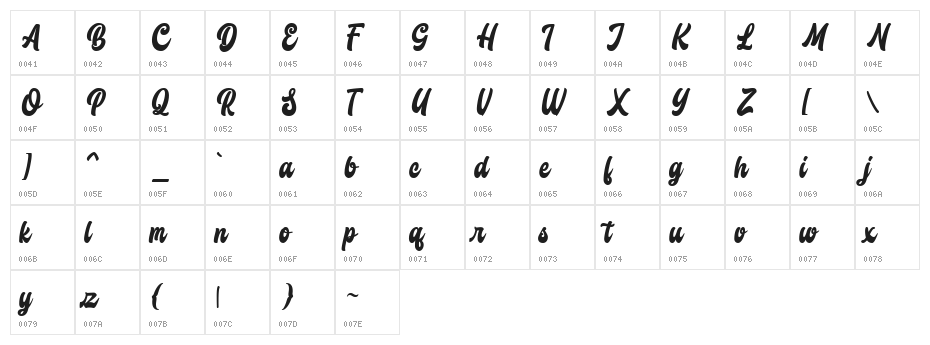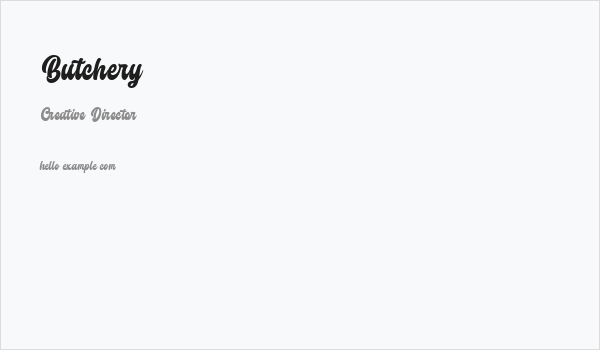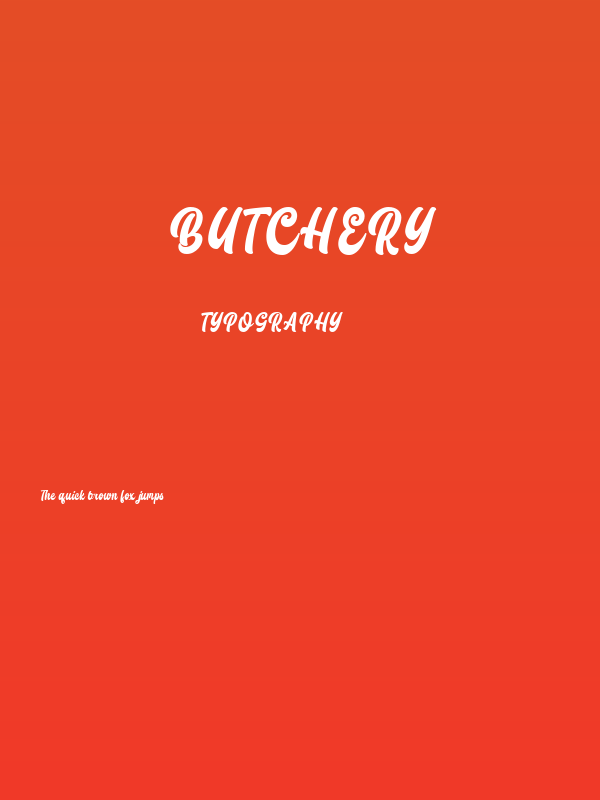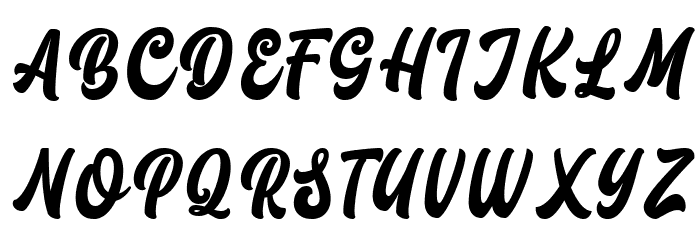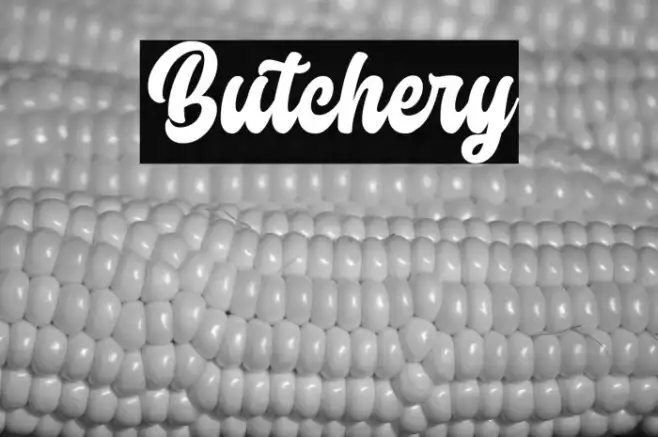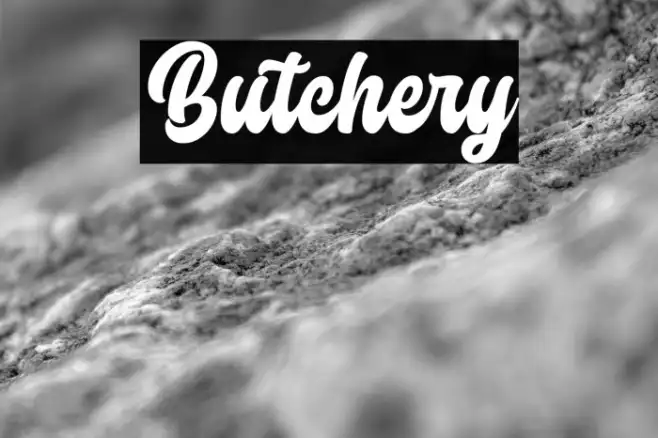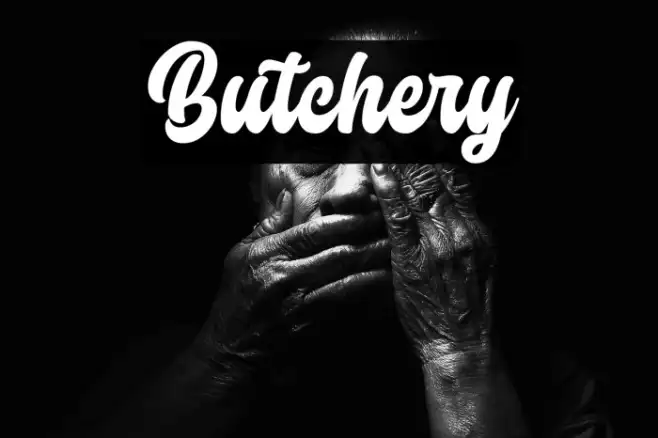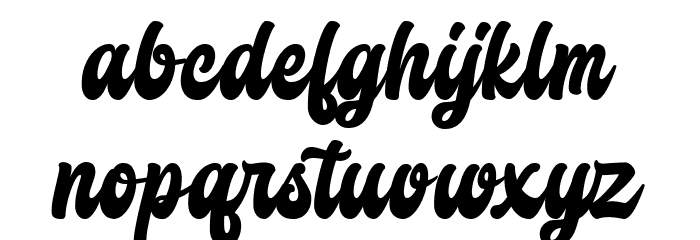
Butchery Font
Butchery Description
This font features a bold and flowing script style, characterized by its smooth, cursive letters that convey a sense of elegance and fluidity. The uppercase letters are slightly larger and more pronounced, giving them a commanding presence, while the lowercase letters maintain a consistent and harmonious flow. The strokes are thick and rounded, providing a robust appearance that enhances readability. The font's design is both classic and modern, making it versatile for various applications. Its playful yet sophisticated style is ideal for projects that require a touch of personality and flair.
| Proposed Projects | Ideal for branding, invitations, greeting cards, and logo design. |